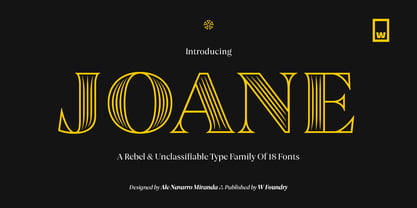
Joane Font
Joane Font is perfect for feminine lifestyle brands, elegant boutique identities, women's empowerment organizations, sophisticated beauty companies, graceful wellness centers, and refined fashion communications. This graceful typeface excels in women's magazine layouts, luxury cosmetic packaging, feminine coaching services, and any application where feminine elegance and personal empowerment create inspiring connections with modern women.
What makes Joane Font so exciting is its exceptional ability to embody the strength and grace of contemporary femininity through elegantly crafted letterforms that celebrate both power and beauty. The font features flowing curves, confident proportions, and sophisticated character shapes that reflect the modern woman's balance of strength and elegance. Its empowering presence makes it perfect for brands that honor authentic feminine leadership and personal growth.
Joane Font comes in a sophisticated family including Light, Regular, Medium, Bold, and Empowered weights. Each style features complete uppercase and lowercase character sets, feminine symbols, elegant numerals, and graceful punctuation marks. The font family also includes flowing alternates, empowerment ligatures, and strength variations that allow designers to create truly inspiring feminine communications with contemporary appeal and professional polish.
This inspiring typeface transforms brand communications into powerful celebrations of feminine strength and authentic self-expression. Joane Font Free Download provides women-focused brands and empowerment organizations with essential typography that honors modern femininity while serving contemporary business needs. Whether you're developing brands for women's services, creating materials for feminine leadership programs, or designing communications for beauty and wellness companies, this font delivers authentic feminine resonance with confident elegance.
The font's empowering character makes it particularly effective for women's coaches, beauty brands, feminine wellness practitioners, and lifestyle companies serving women. Its graceful readability ensures that Joane Font communicates clearly while maintaining its distinctive feminine personality. The font's ability to inspire confidence and celebrate authenticity makes it an invaluable crown for any project seeking to honor women's strength and connect with audiences through the timeless appeal of feminine grace, personal empowerment, and the beautiful journey of authentic self-expression.